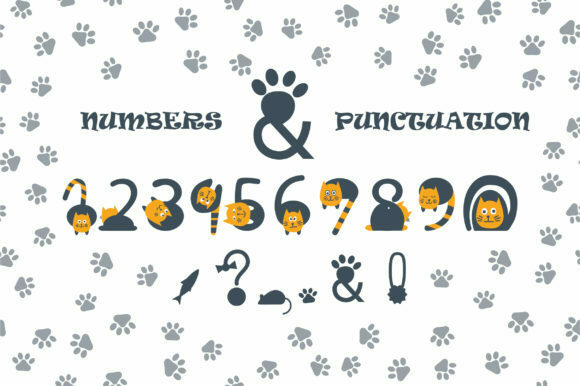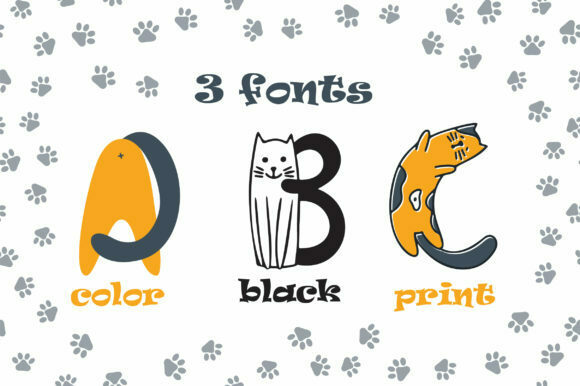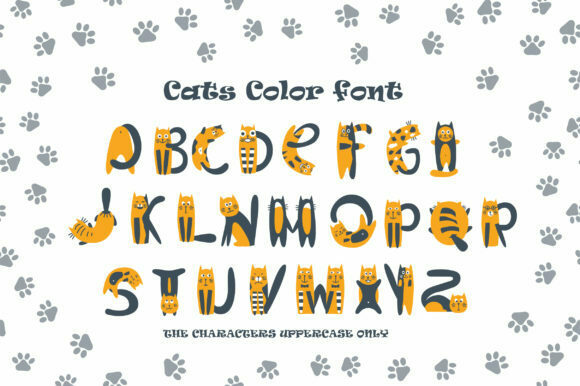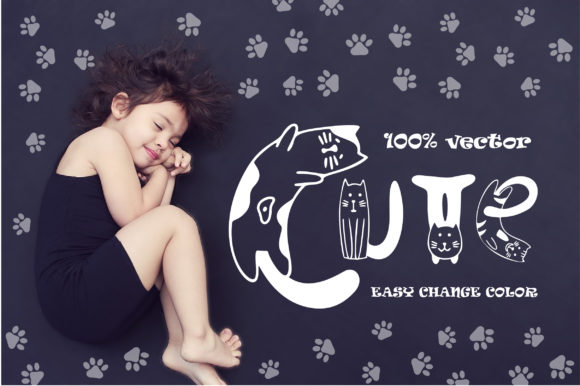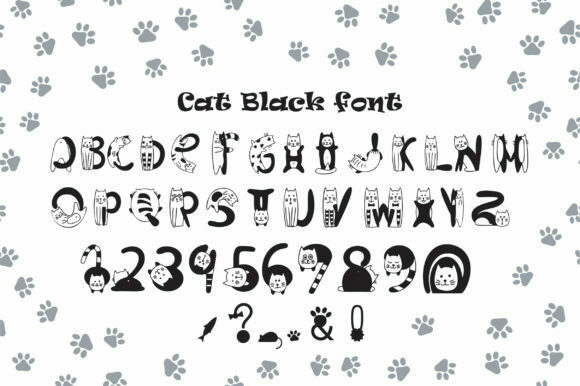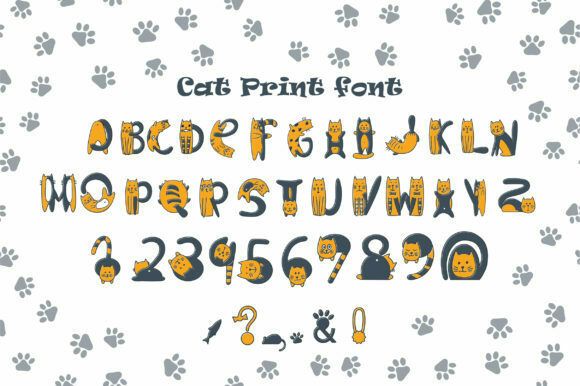
Cats Font
About Cats Font
Introducing “Cats,” an amazing and fresh color font that exudes a bold charm and features an adorable cat theme. This font is designed to effortlessly transform any design project into a standout piece, capturing the hearts of both cat lovers and design enthusiasts.
“Cats” is packed with personality and cuteness, making it a perfect choice for a wide range of creative endeavors. Whether you’re working on greeting cards, posters, children’s books, social media graphics, or any other project that could benefit from a touch of feline charm, this font will bring a delightful and playful vibe to your designs.
Whether you’re designing for personal use, creating branding materials, or working on projects for clients, “Cats” will undoubtedly captivate the attention and bring a sense of whimsy to your designs. The adorable cat-themed letters will evoke a sense of joy and playfulness, instantly drawing the viewer’s gaze.
Embrace the charm of “Cats” and let it inspire your creative process. Experiment with different colors, sizes, and layouts to create compositions that showcase the font’s unique character. Combine it with illustrations, graphics, or other design elements to craft truly memorable and captivating visuals.
So, dive into the world of “Cats” and let its adorable and fresh color font elevate your design projects. Embrace the playfulness, unleash your creativity, and watch as your designs come to life with the irresistible charm of these delightful feline-inspired letters.